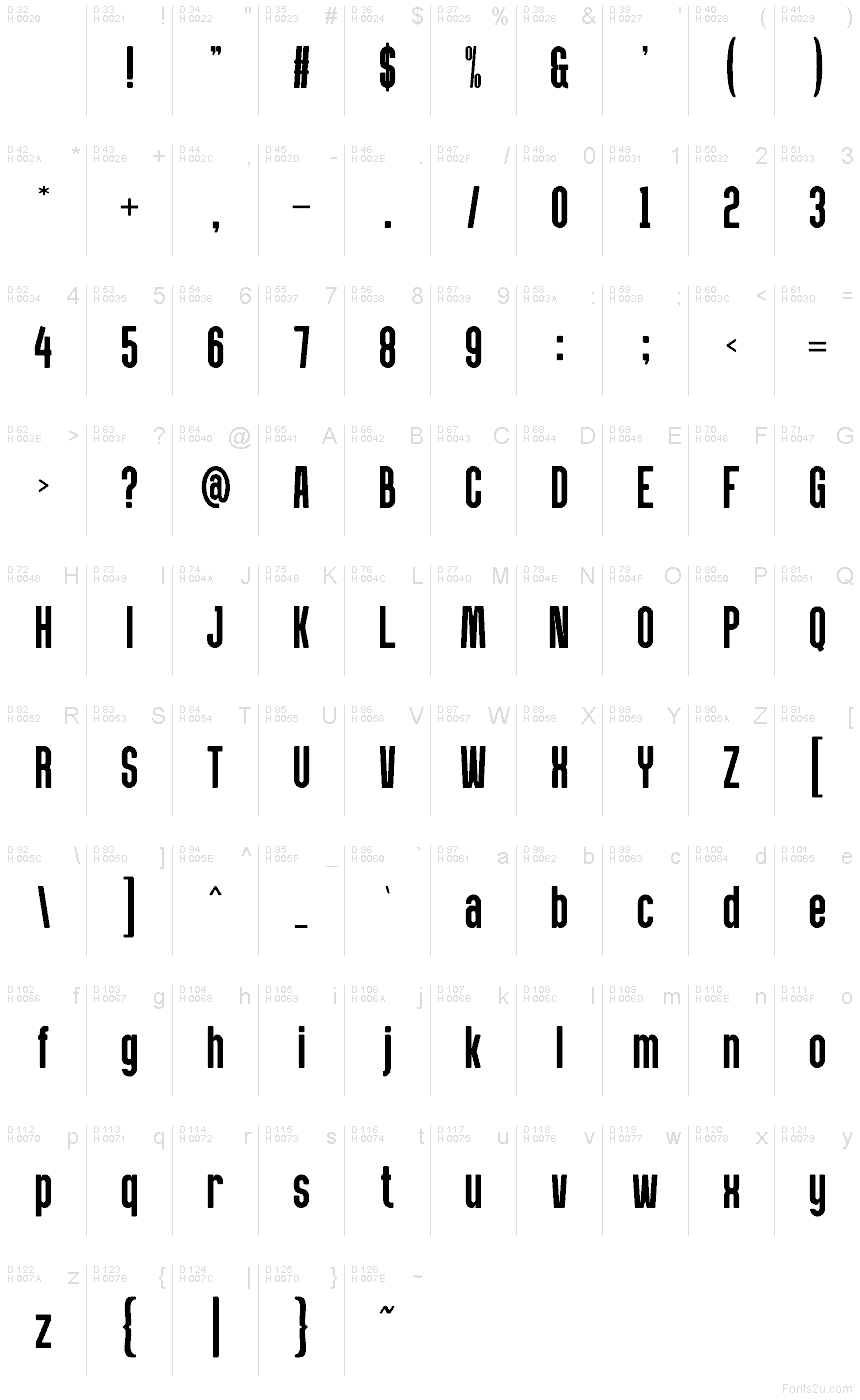
DUMERO Rounded
Dumero Rounded font by Gilang Ternadho is a condensed sans serif font with rounded forms; an extraordinary combo that makes the typography exceptionally harmonious and readable. Its modern aesthetic and geometric structure account for its solid and strong presence with the font being an absolute eye-catcher in any design.
Being free, this extraordinary typeface can be put to good use in headings, posters, online posts, branding projects, packaging designs, magazine covers and content, business cards designs, signage boards, book covers and pages among other graphic design items.